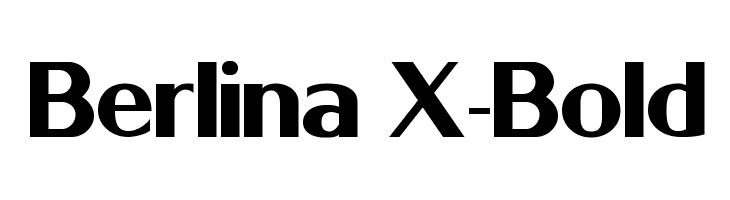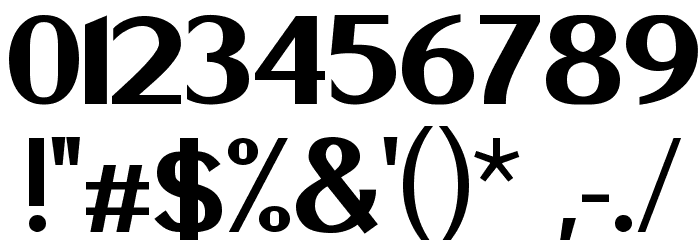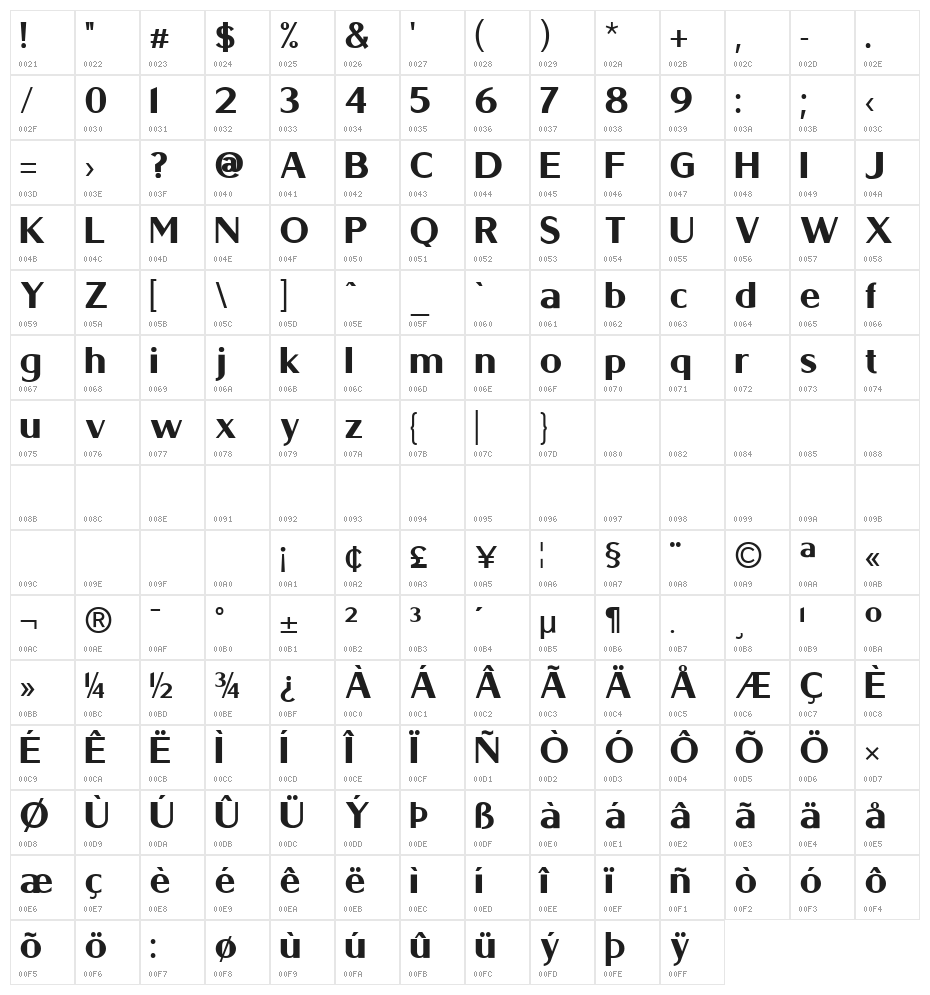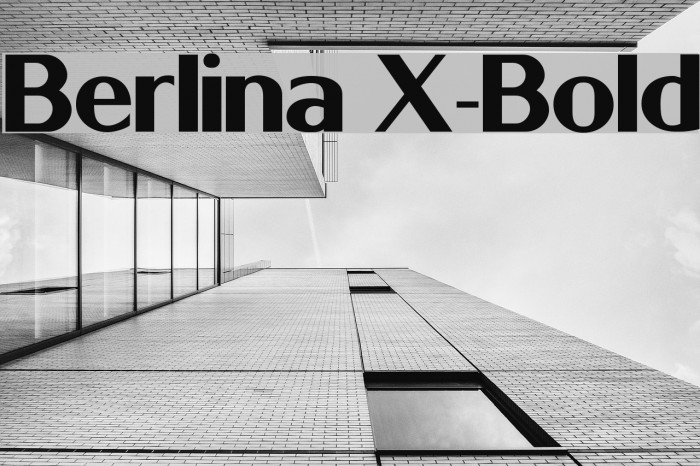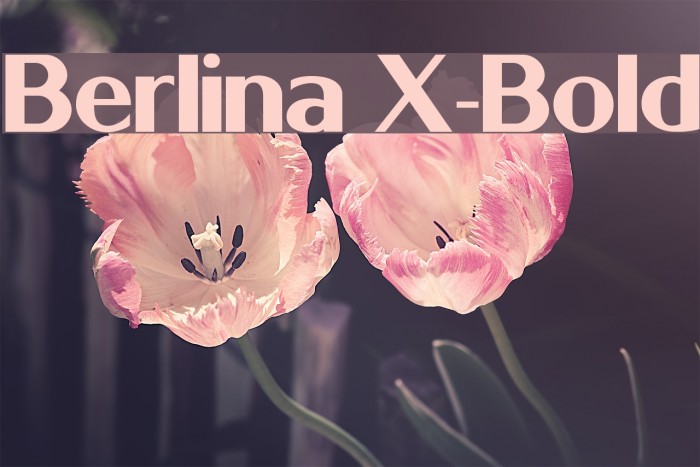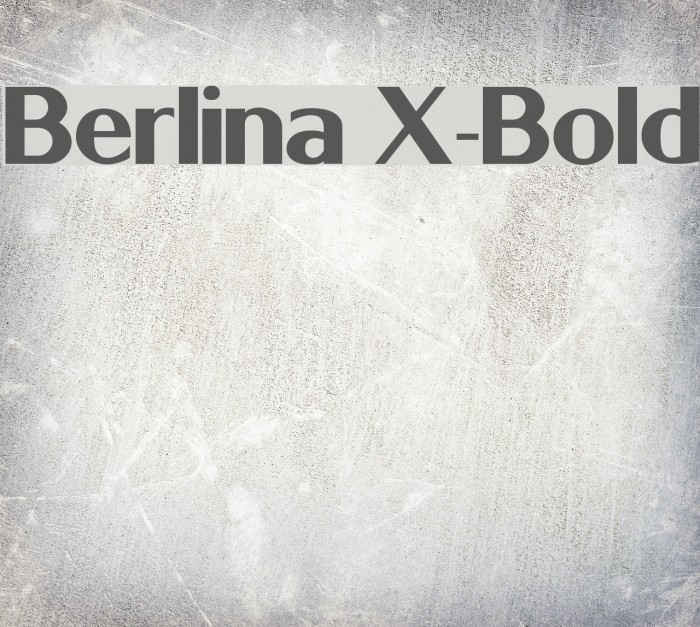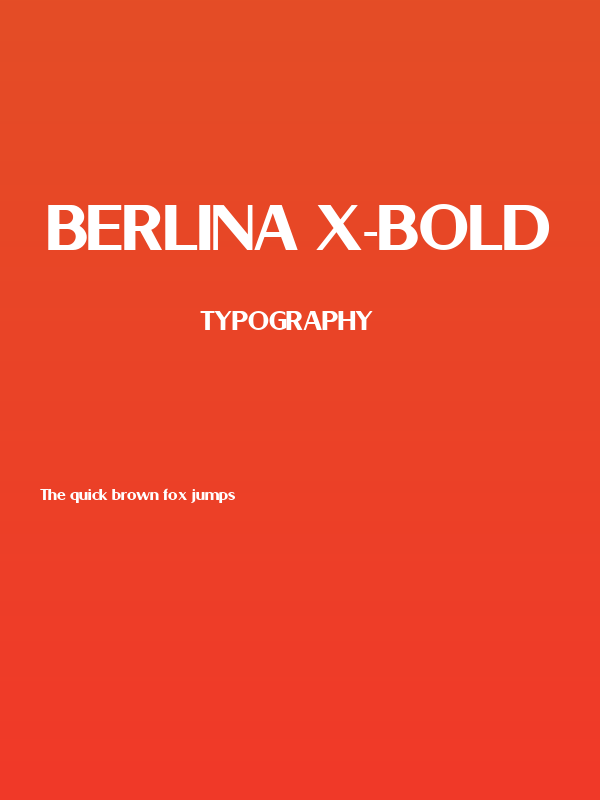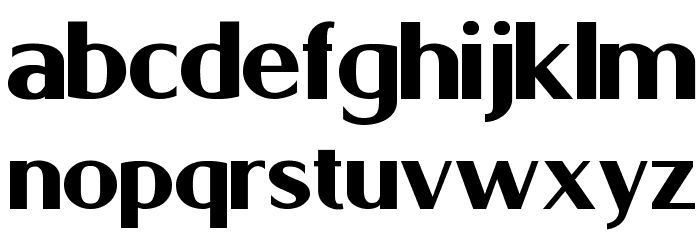
Berlina X-Bold Font
Berlina X-Bold Description
This font exhibits a bold and assertive presence with its thick strokes and clean lines. The uppercase letters are uniform in height, providing a strong and cohesive look. The lowercase letters maintain a consistent style, with rounded edges that soften the overall appearance. The numerals are clear and easy to read, making them suitable for various applications. Special characters are well-defined, adding versatility to the font. The overall design is modern and professional, suitable for a wide range of uses.
| Use Case | Headlines, Logos, Advertising |
| Proposed Projects | Ideal for branding, headlines, posters, and advertising materials. |